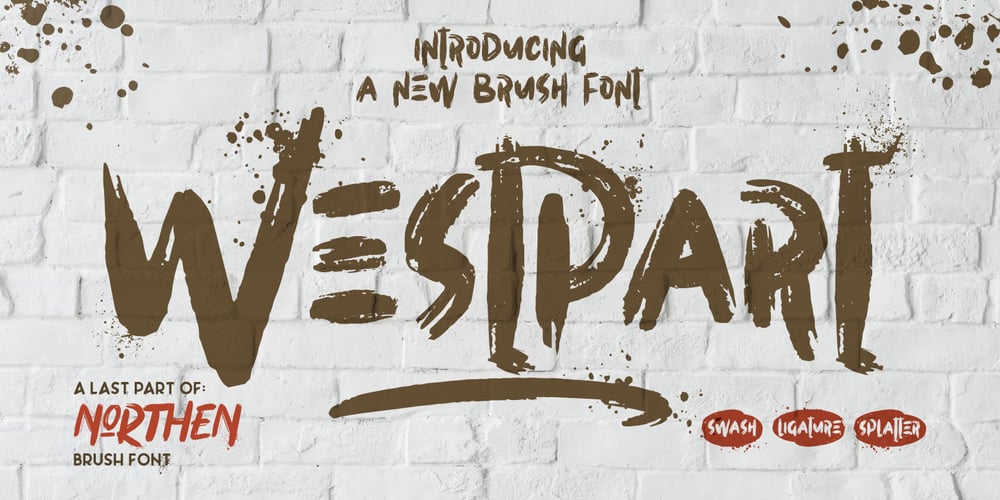
Westpart Font Family was designed by Risman Ginarwan and published by Garisman Studio. Westpart contains 1 styles and family package options. Westpart was born from the previous three brush fonts: 1. Northen, 2. Easttalia and 3. Southen. This font is part of the 4 directions that cannot be separated. It has a styling brush that is very different from before, because the Westpart has its own advantages. Westpart has a bonus splatter, ligature, and swash that has a very detailed brush effect. In addition, Westpart is very supportive of the use of 27 languages.